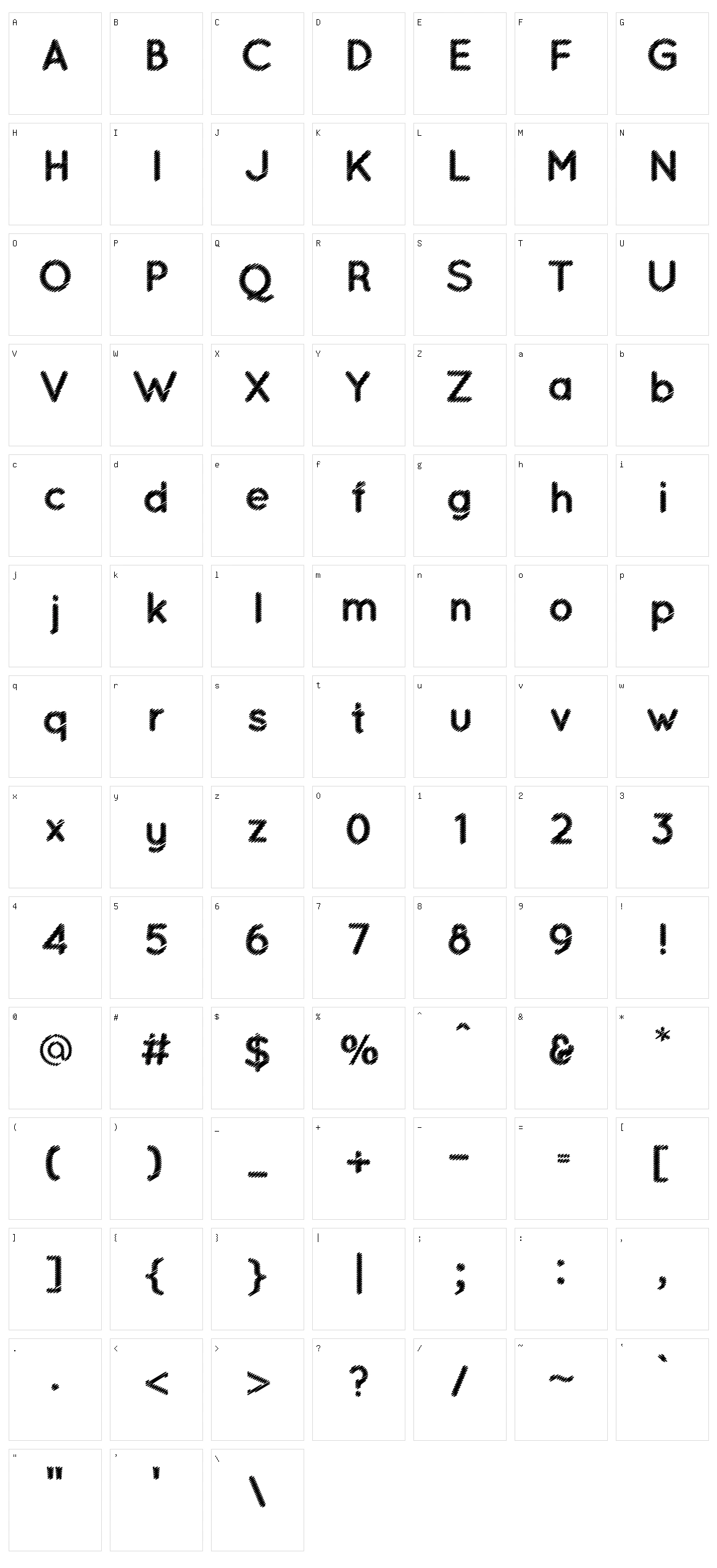
The free font Ocie is carefully designed by Louis Dorman, showcasing a thoughtful balance of creativity and usability and falls under the Distorted font style. When you download the ZIP file, it contains only 673.96 KB of font files, making it lightweight and quick to download. Please review the license details below to understand permitted usage and distribution rights. If license information is not available, we recommend using this font for personal projects only or contacting the author directly for commercial usage permissions.